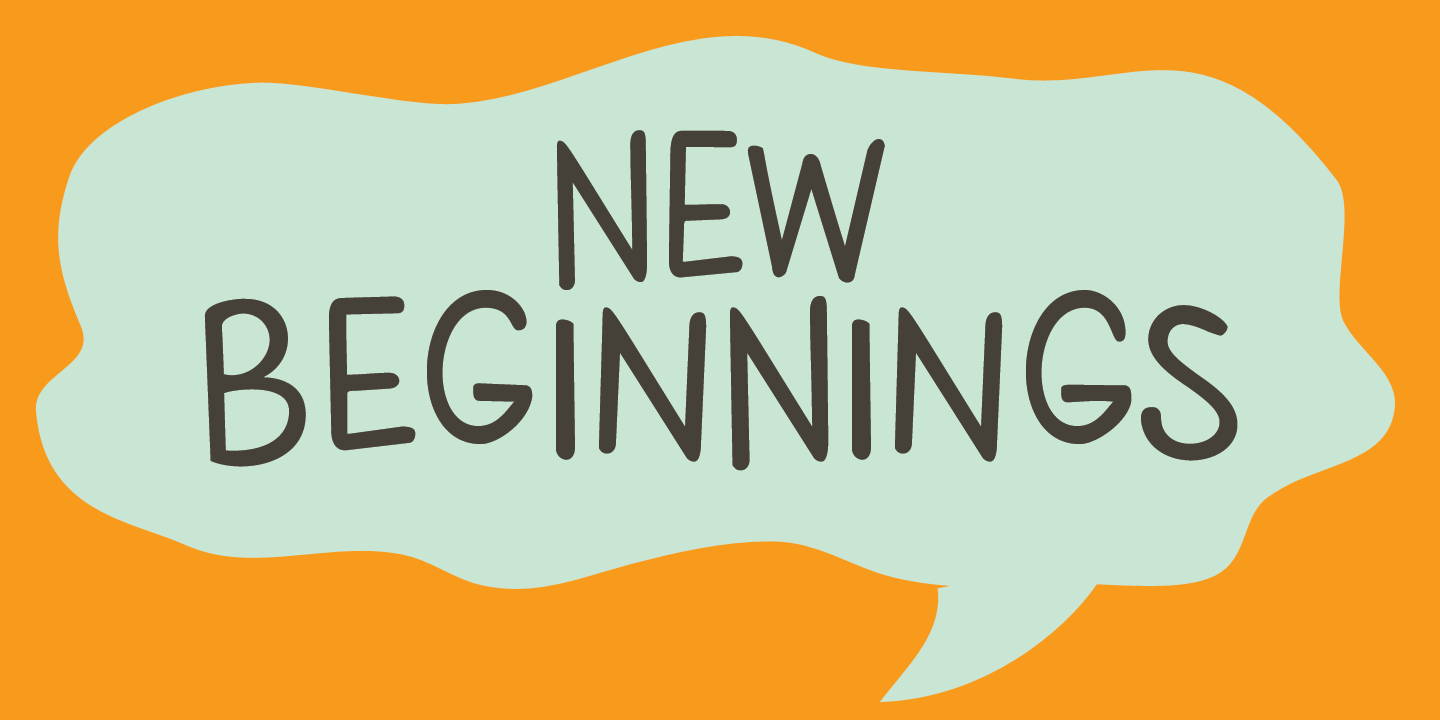
The New Beginnings Font Free Download is ideal for children’s books, product packaging, greeting cards, and playful branding, offering a fun, hand-drawn aesthetic.
This font is exciting because its quirky, all-caps design with interchangeable upper and lower glyphs creates a lively, versatile look for creative projects.
The New Beginnings family includes a single Regular style with extensive diacritics, ensuring broad usability across languages.
Ignite fresh creativity with the New Beginnings Font Free Download, a vibrant hand-display typeface designed by David Kerkhoff and published by Hanoded in 2016. Perfect for crafting eye-catching headlines, logos, or packaging, New Beginnings features a happy, original style with distinct upper and lower glyphs that can be mixed for dynamic designs. With over 400 glyphs and abundant diacritics, it supports multiple languages and is available in OTF, TTF, and WOFF formats for seamless use in print and digital platforms. As 2025 design trends embrace playful, expressive typography, downloading New Beginnings Font Free Download keeps your work fun and engaging. Test it today at fontspring.com to explore its potential, and consider purchasing at hanodedfonts.com for commercial use to fully leverage its versatile charm.